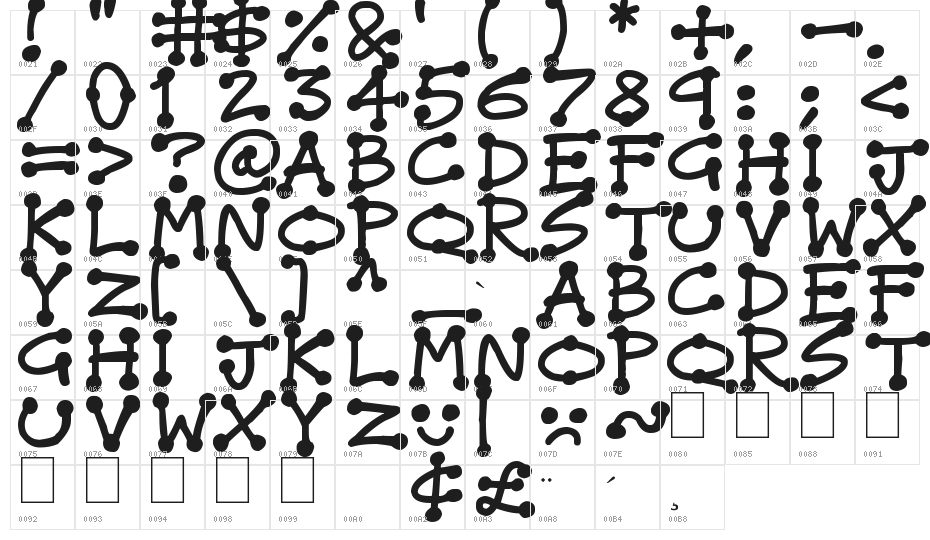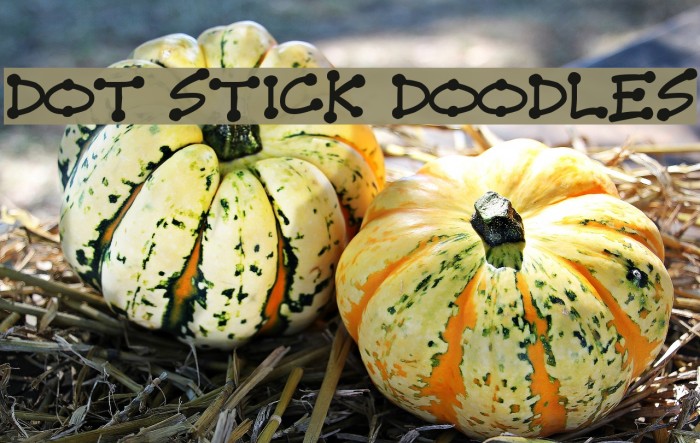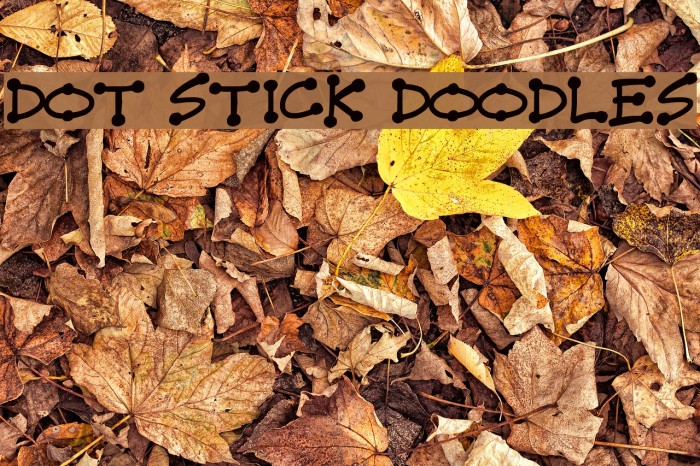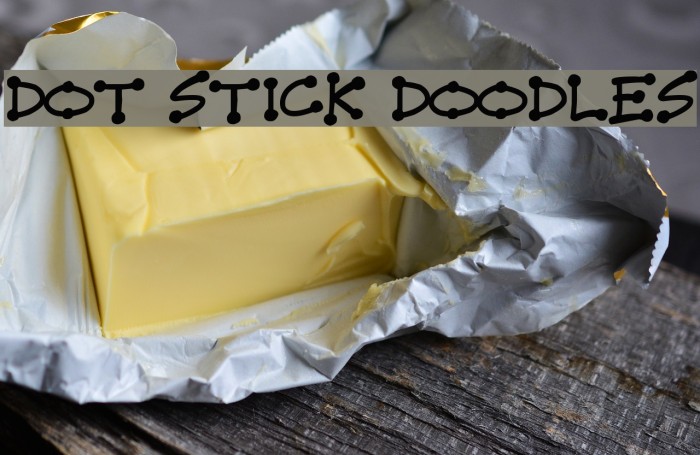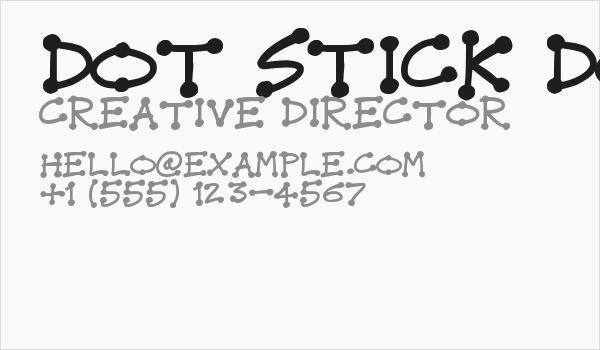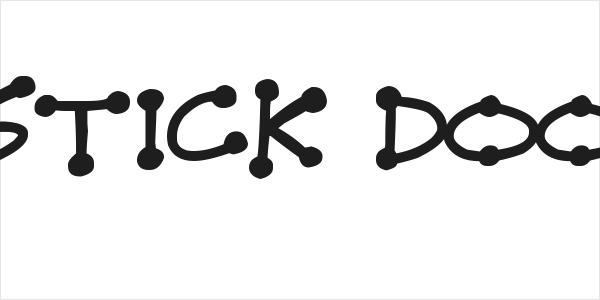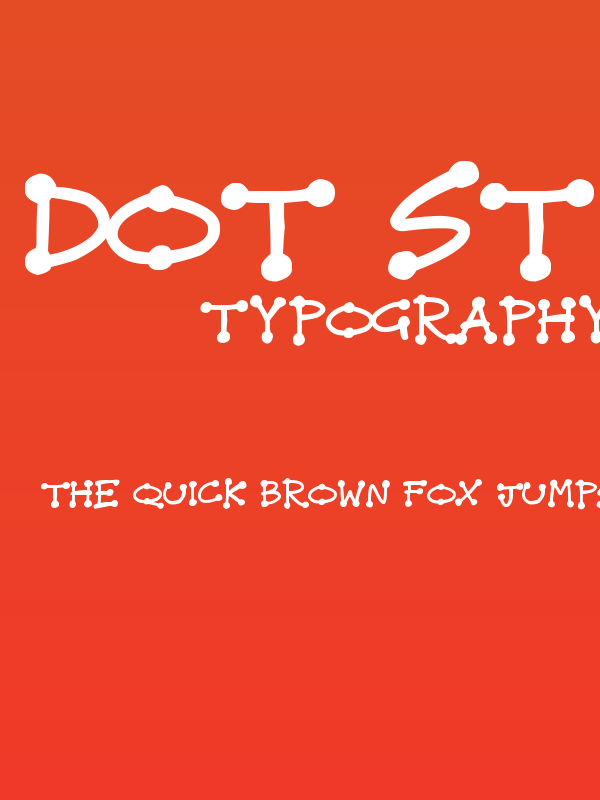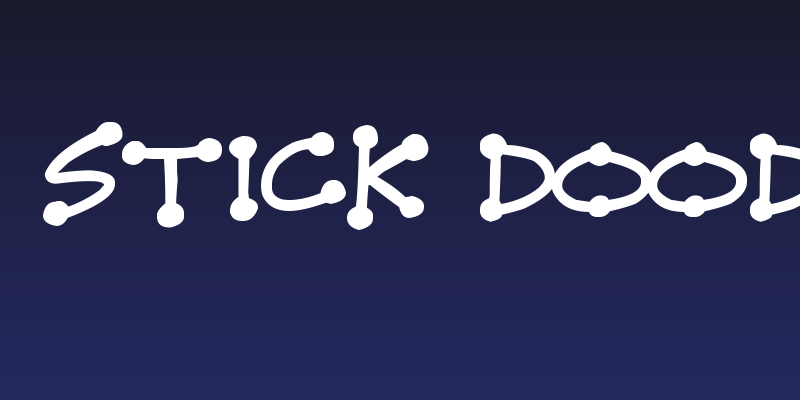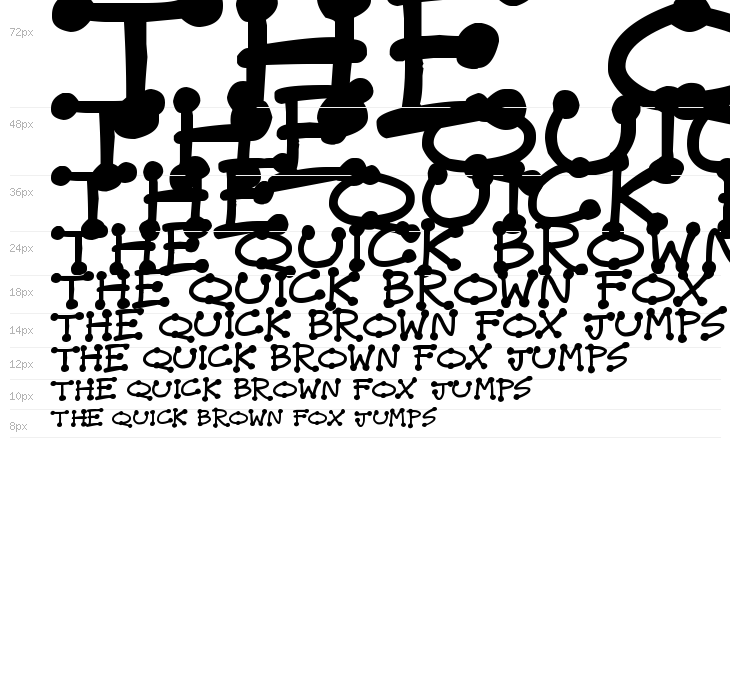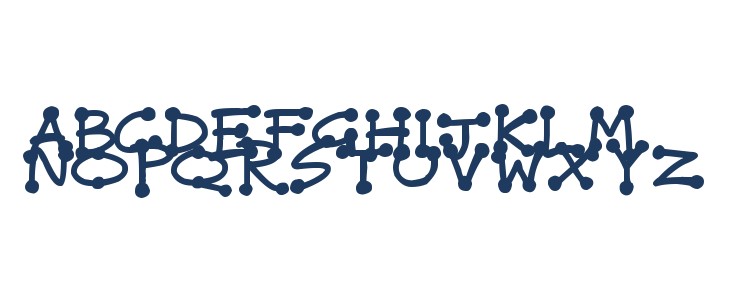
Dot Stick Doodles Font
Dot Stick Doodles Description
This playful and whimsical font features a unique design where each character is composed of dots connected by thin lines, resembling a stick figure style. The letters are bold and rounded, giving them a friendly and approachable appearance. The font maintains a consistent thickness throughout, with a medium contrast between the dots and the connecting lines. Its distinct style makes it stand out, adding a touch of fun and creativity to any project. The characters are evenly spaced, ensuring readability while maintaining its decorative charm.